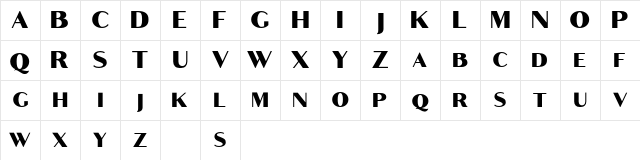
Croco Free Regular
Foundry: Craft Supply Co
Year: 2019
Croco Free Family
Croco Free Regular
Design Context for Croco Free
Croco Free is a composed and adaptable typeface that performs quietly and consistently across a wide range of design contexts.